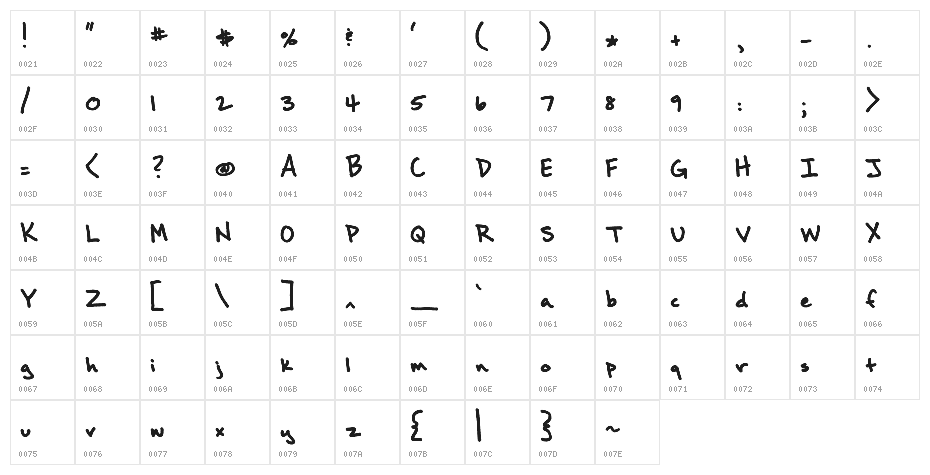
BrownBagLunch Font
BrownBagLunch Description
This font exudes a playful and casual handwritten style, characterized by its uneven strokes and slightly irregular letterforms. The letters have a natural, organic flow, reminiscent of a quick note jotted down with a marker. The uppercase and lowercase characters maintain a consistent style, with rounded edges and a friendly appearance. The numbers and special characters follow the same informal aesthetic, making the font versatile for various informal applications. Its charm lies in its simplicity and the personal touch it adds to any text.
| Use Case | Logos, Headlines, Informal text |
| Proposed Projects | Ideal for greeting cards, children's books, casual invitations, and personal notes. |